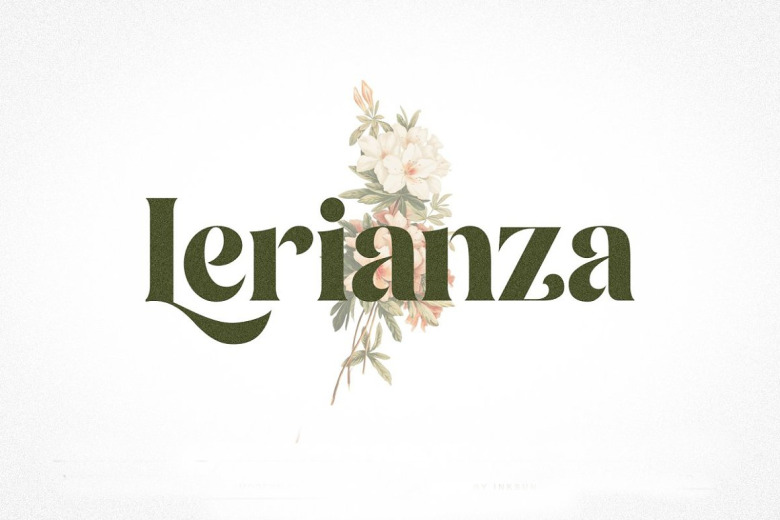
Lerianza Font
Lerianza is a unique and interesting serif font. Incredibly versatile, this font will fit a wide pool of designs. Fall in love with its incredibly stylish look and use it to create spectacular designs!
Lerianza Serif Font